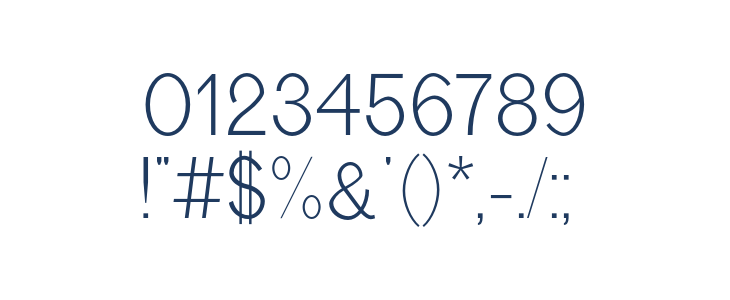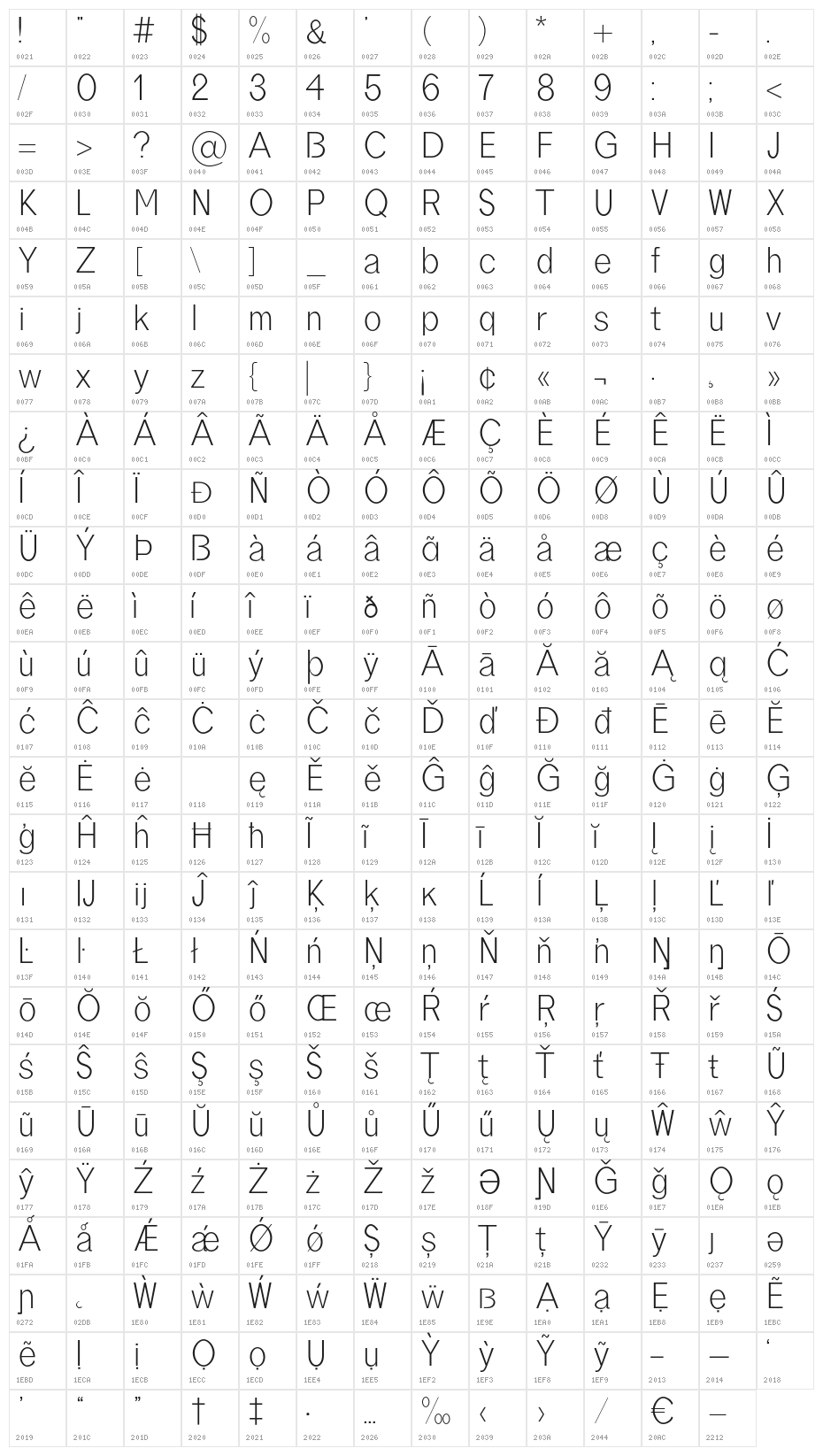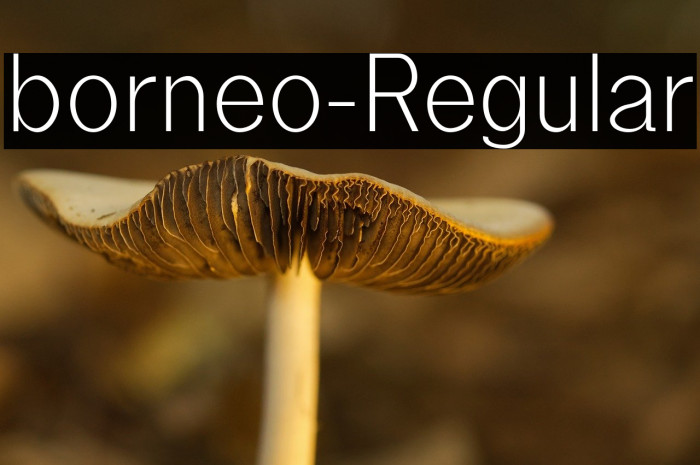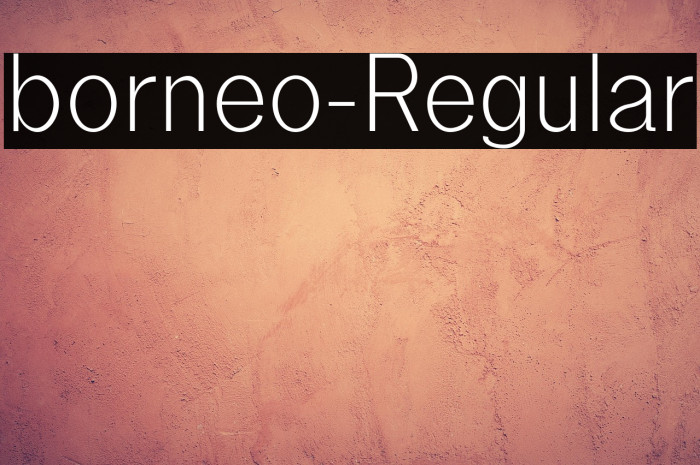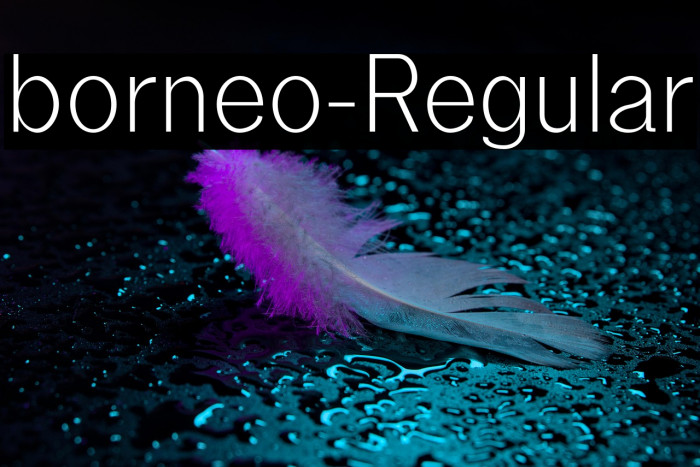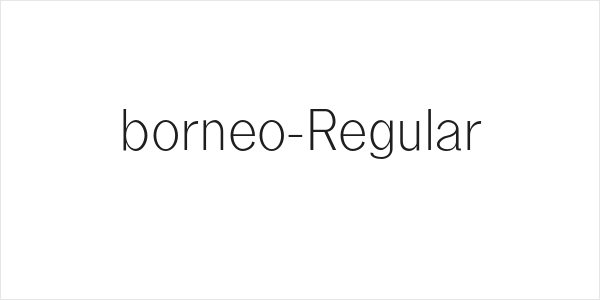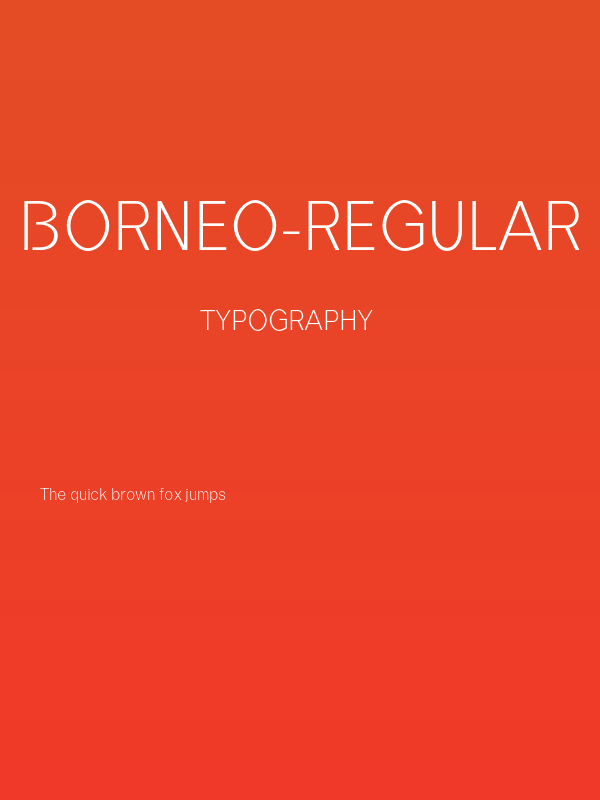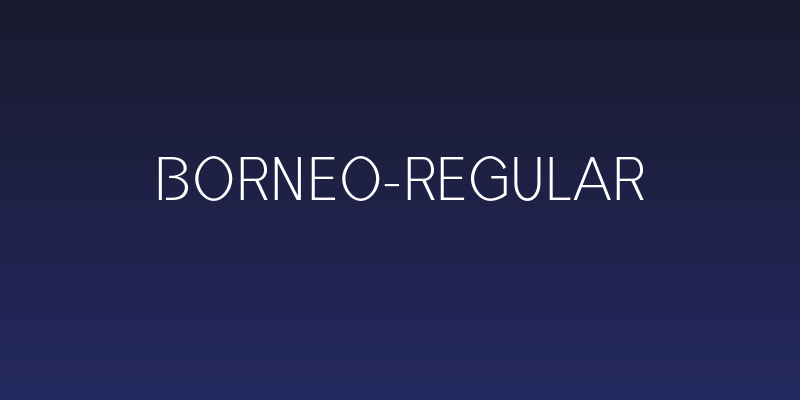
borneo-Regular Font
borneo-Regular Description
This font features a clean and modern sans-serif design with a geometric structure. The characters are evenly spaced, providing a balanced and harmonious appearance. The uppercase letters are tall and slightly condensed, while the lowercase letters maintain a consistent height, contributing to its readability. The numerals are clear and distinct, making them suitable for various applications. Special characters are well-defined, adding versatility to the font's use. Overall, the font exudes a minimalist aesthetic, making it ideal for contemporary design projects.